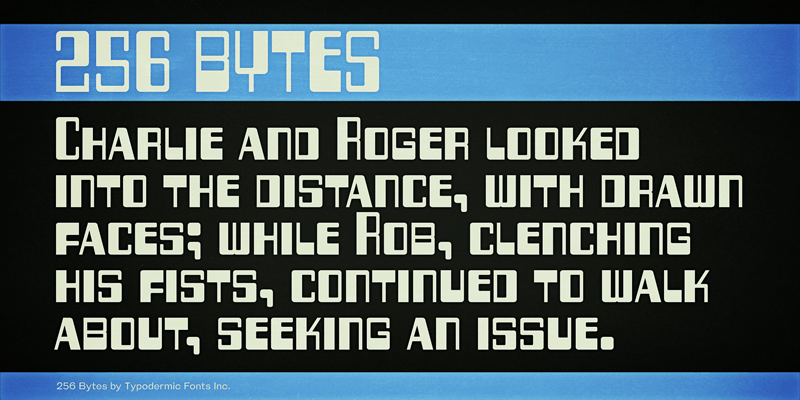
Preview and download 256 Bytes Font. Created by Typodermic Fonts in Techno Sci-fi styles with 100% Free license.
256 Bytes is a font I created in the late 1990s based on the logotype for the MITS Altair 8800 personal computer. You can see one behind Maurice’s desk in series 3 of the britcom, The IT Crowd. I recently revamped 256 Bytes with new blah blah blah and OpenType yadda yadda which can be accessed using the derp-de-derp feature. This font includes a license that allows free commercial use: sometimes referred to as a desktop license. This allows you to install the font on a computer and use it to create posters, web graphics, game graphics, t-shirts, videos, signs, logos and more. Read the license agreement for details. If you'd like to embed this font in an app, ebook, on the web or anything that's not covered by the desktop license agreement, visit the link below. You'll find distributors who offer different types of licenses or you can contact me for help. http://typodermicfonts.com/256-bytes/ |